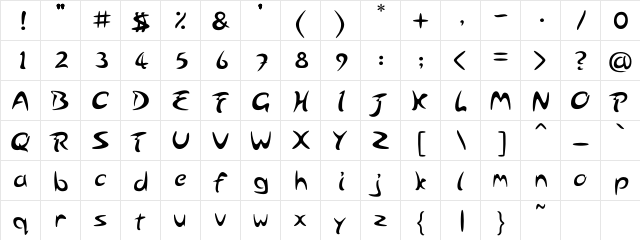
Arabolical 1
| Foundry | afontgarde |
| Designer | BenTagain |
Design Context for Arabolical Typeface
Arabolical is a composed and adaptable typeface that performs quietly and consistently across a wide range of design contexts.